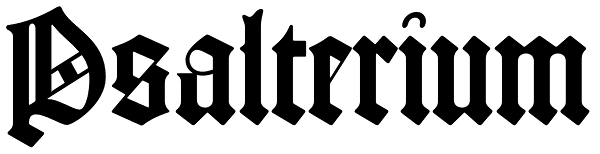
Psalterium
A clean, smooth adaptation of the magnificent gothic types used by Johann Fust and Peter Schöffer in their famous Mainz Psalter (Psalterium Moguntinum) of 1457, also used in their Canon of the Mass (Canon Missae) of 1458, and in their Benedictine...